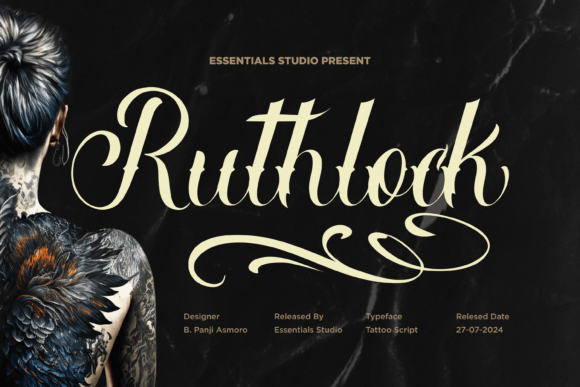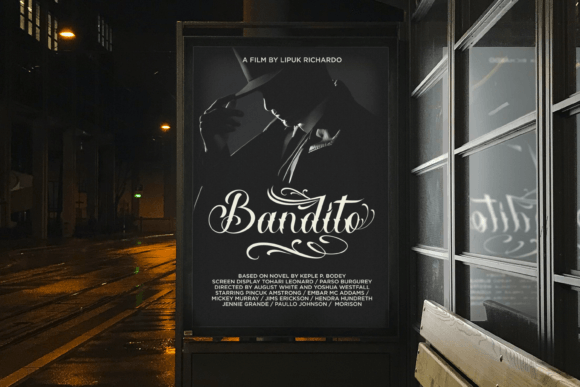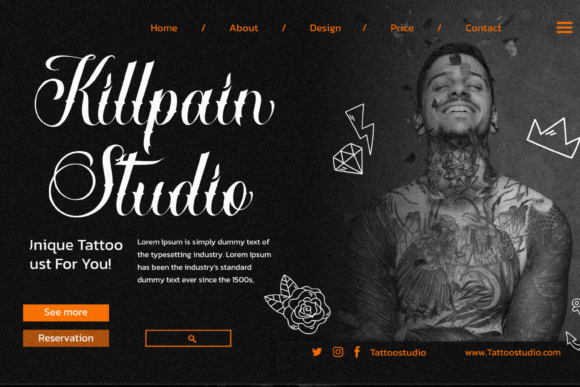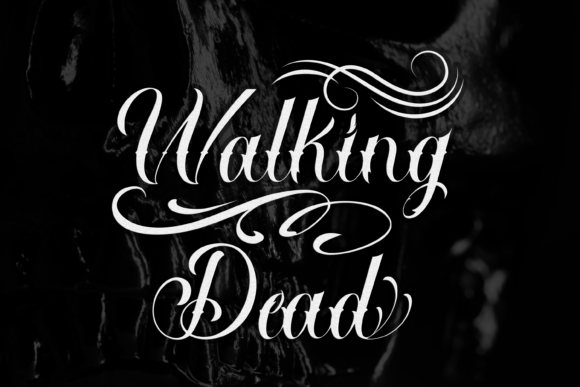
Ruthlock Font: Bold Script Tattoo Font for Creative Typography
About the Ruthlock Font
The Ruthlock Font offers a perfect balance of form and function for your design needs. Introducing Ruthlock, a thoughtfully crafted modern script tattoo font by Essentials Studio. Exhibiting a bold yet beautiful aesthetic, it seamlessly marries elegance with impact. This font is exquisitely suited for branding initiatives, or as a standout choice for tattoo studios desiring a unique and striking typographical presence. Experience the harmonious blend of daring boldness and timeless beauty with Ruthlock, Enjoy your designs touch with our masterpiece.
Ruthlock’s bold, elegant strokes make it ideal for headlines, logos, short impactful phrases, and packaging design where a strong visual presence is needed. It excels in creating a sense of luxury or rebellion, depending on the application. However, its decorative nature makes it unsuitable for body text or UI elements requiring high readability.
Pair Ruthlock with a clean sans-serif like Montserrat for a modern contrast, or a classic serif like Garamond for a more traditional feel. A geometric sans-serif such as Futura would provide a striking, contemporary balance. Avoid pairing it with other script fonts as this can create visual clutter.
Ruthlock projects a confident, slightly rebellious personality, lending itself well to brands focused on fashion, luxury goods, tattoo artistry, or music with a bold aesthetic. Its powerful yet refined style makes it a versatile choice for conveying strength and sophistication.
Ruthlock Font Usage Examples
Ruthlock Font Example